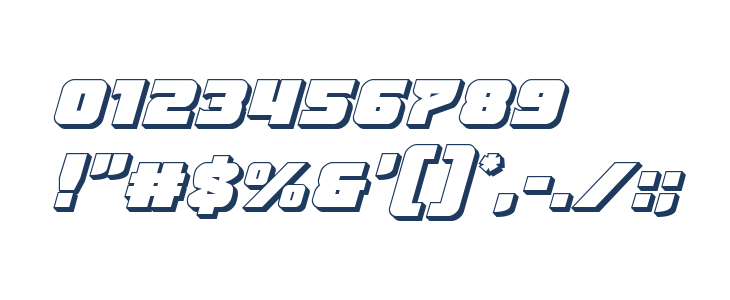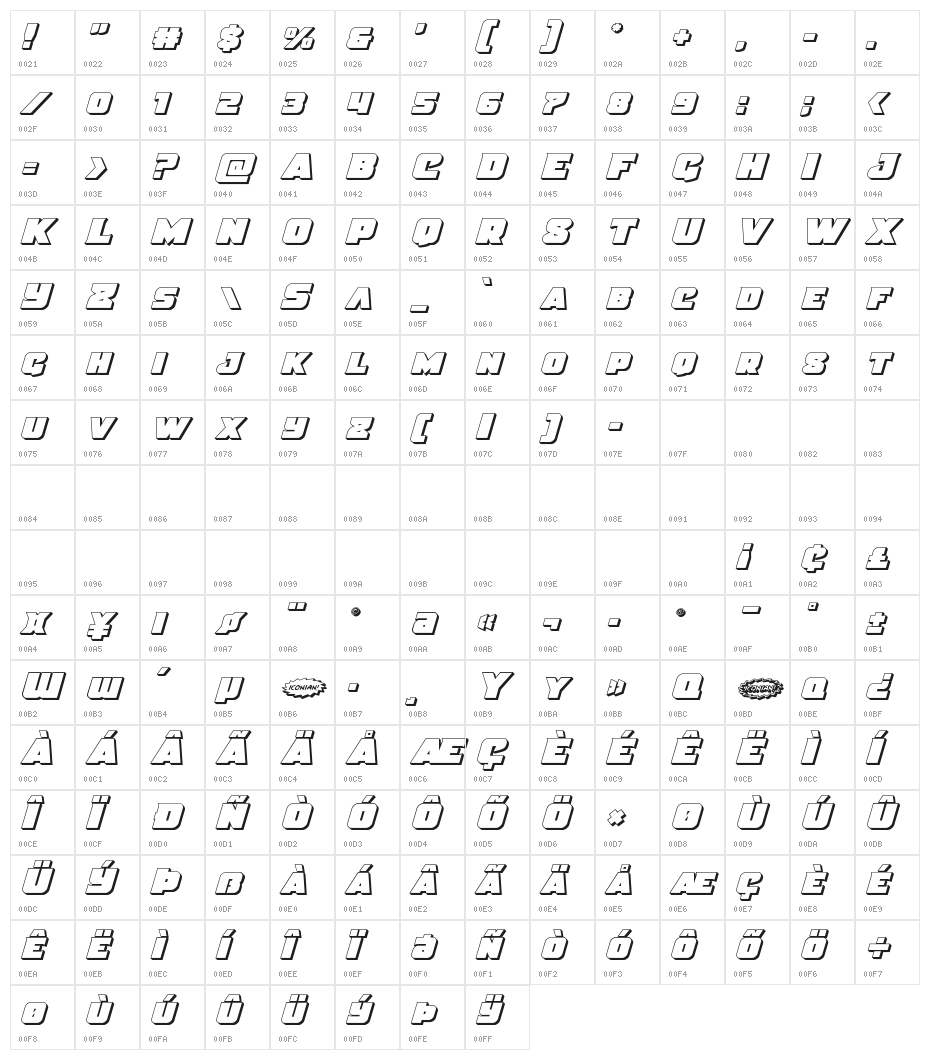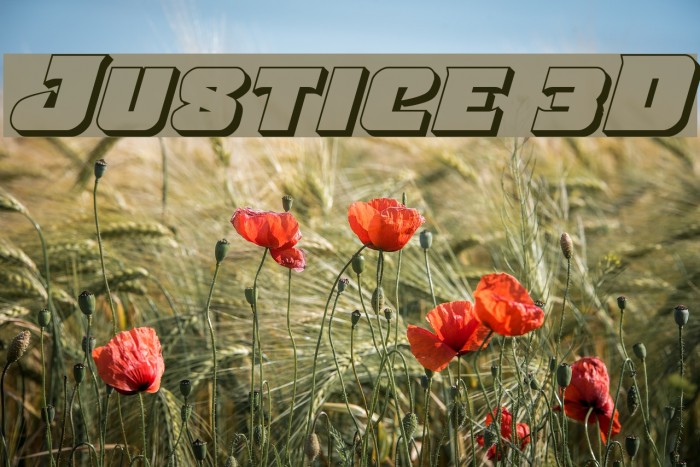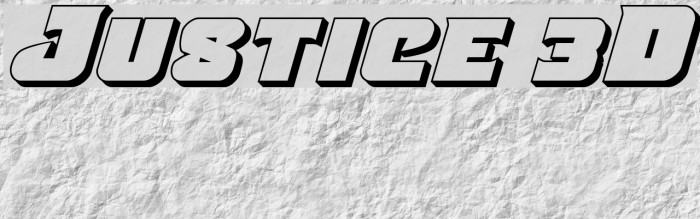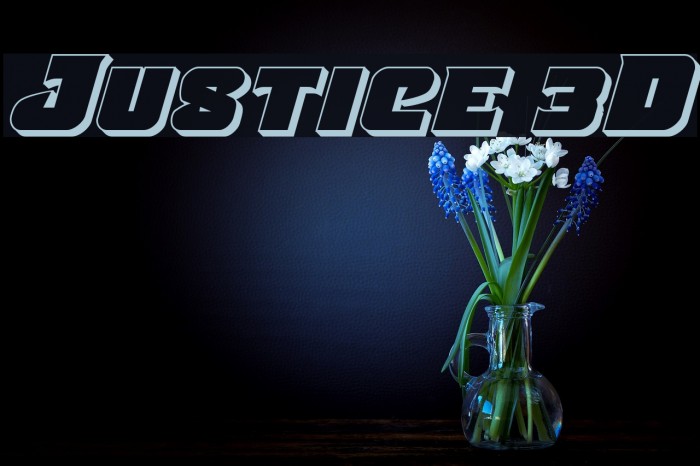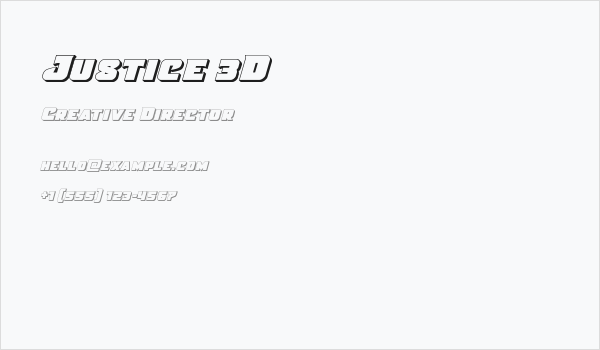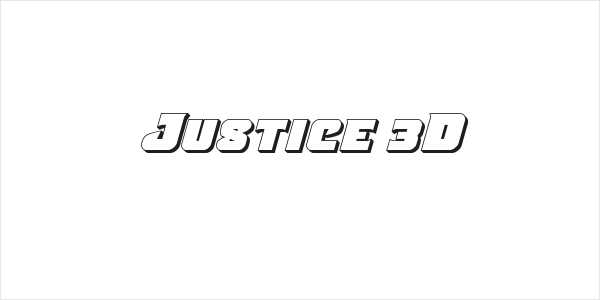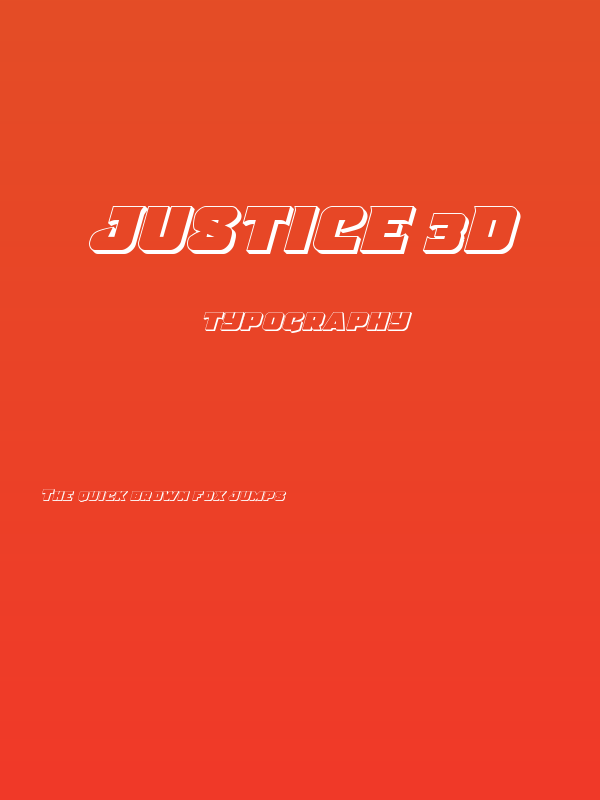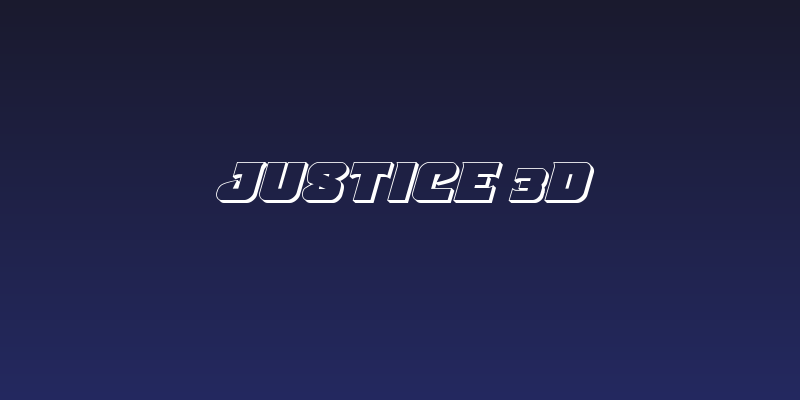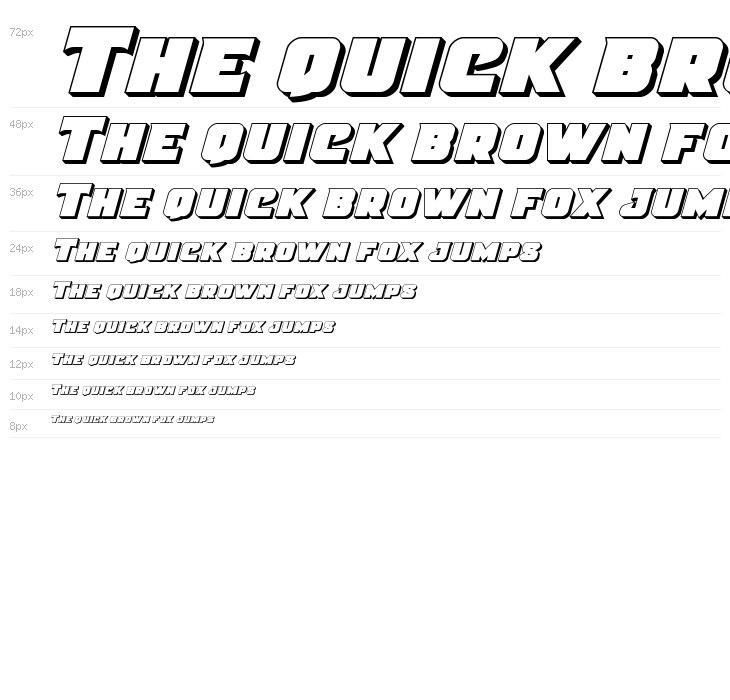
Justice 3D Font
Justice 3D Description
This font features a bold, three-dimensional style that gives each character a strong, impactful presence. The letters are capitalized and have a shadow effect that enhances the 3D illusion, making them stand out prominently. The design is angular and geometric, with sharp edges and a consistent thickness throughout each character. This font is ideal for creating a sense of depth and dynamism in any design project. The numbers and special characters maintain the same bold and structured appearance, ensuring a cohesive look across all text. The font's style is both modern and assertive, making it suitable for attention-grabbing headlines or titles.
| Proposed Projects | Ideal for posters, video game titles, logos, and any design requiring a bold, dynamic look. |